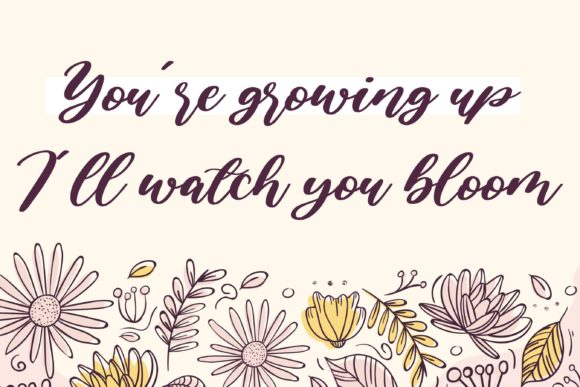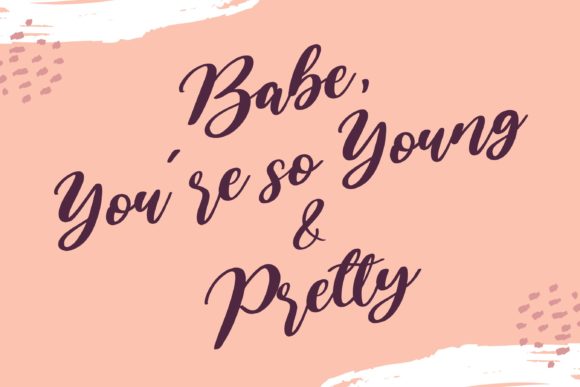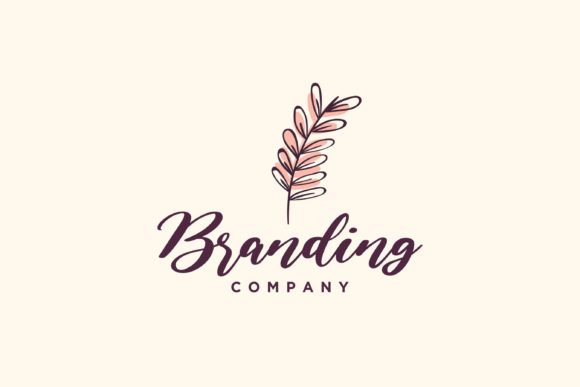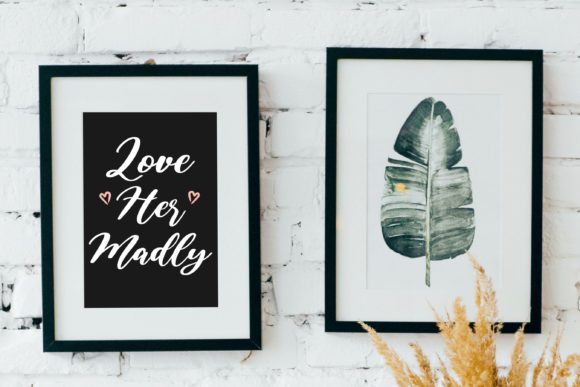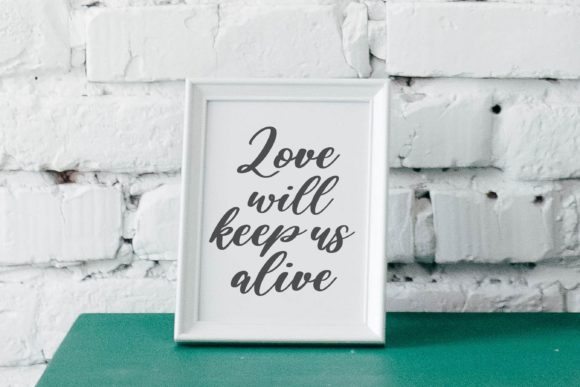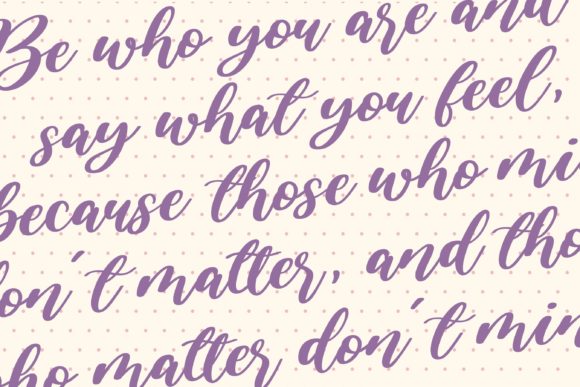
The Whimsical World of Amarila Font: A Designer’s Delight
I’ll never forget the time I was working on a project for a client who wanted a font that was both playful and elegant. I had spent hours scouring the internet for the perfect match, but nothing seemed quite right. That was until I stumbled upon Amarila Font, a whimsical handwritten font created with the help of a brush pen. It was love at first sight! 💕
Amarila’s relaxed and versatile style immediately caught my attention, and I knew I had found the perfect fit for my project. In this article, I’ll share with you why Amarila Font has become a true favorite among designers, crafters, and creative hobbyists. From its unique characteristics to its practical applications, we’ll dive into the world of Amarila Font and explore what makes it so special.
An Honest Review: What I Love (and What to Watch Out For) 🤔
• ✨ Unique, hand-crafted feel that adds a touch of personality to any design
• ✅ Versatile and adaptable to various design styles and projects
• ✅ Easy to read and understand, even in smaller font sizes
• ✅ Extensive OpenType features, including glyphs and stylistic alternates
While Amarila Font is an excellent choice for many design projects, there are a few things to keep in mind:
• ⚠️ Some characters may appear a bit inconsistent in size or spacing, which can be adjusted with kerning and tracking
• ⚠️ Limited use of uppercase letters, which may not be suitable for all design projects
The Backstory: Designer Inspiration 🌟
Amarila Font was created by a talented designer who wanted to capture the essence of handwritten text. Inspired by the fluidity of brush pen writing, Amarila Font was born. With its unique character and versatility, it’s no wonder Amarila Font has become a favorite among designers and crafters.
Q: What makes Amarila Font unique?
A: Amarila Font’s unique character comes from its hand-crafted, brush pen-inspired design. Its relaxed and versatile style makes it perfect for a wide range of design projects.
Q: Is Amarila Font suitable for body text?
A: While Amarila Font is easy to read, it’s best suited for headings, titles, and short paragraphs. For longer body text, a serif font may be more suitable.